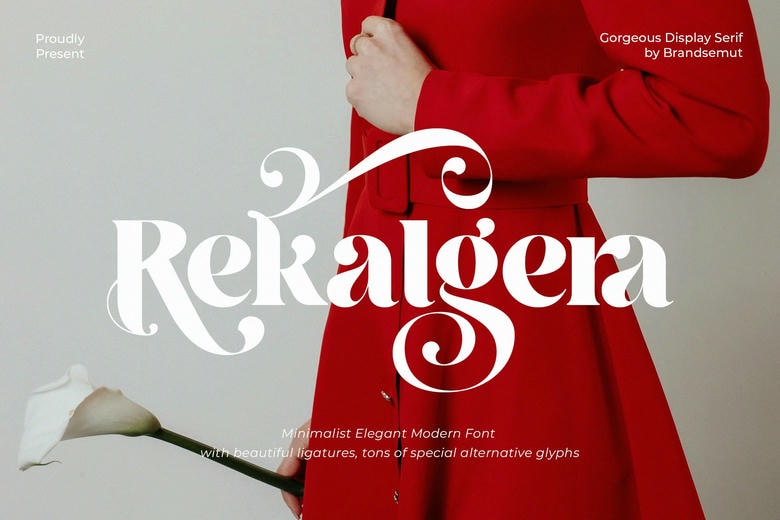
Rekalgera Font
Rekalgera is pretty contemporary serif typeface which looks totally fashionable. That is designed and posted by BrandSemut exclusively for their brand advertising. Rekalgera is an elegant and stylish display serif font, work well in headings, logos, branding, magazines, product packaging and invitations. Rekalgera with Ligature and many Alternates and have nice clear lines and curves to make any project just that little more classy.
Rekalgera Serif Font